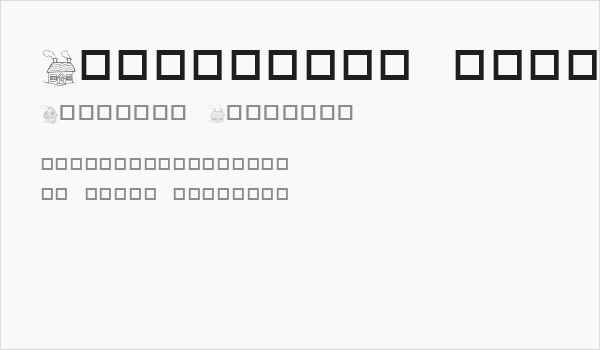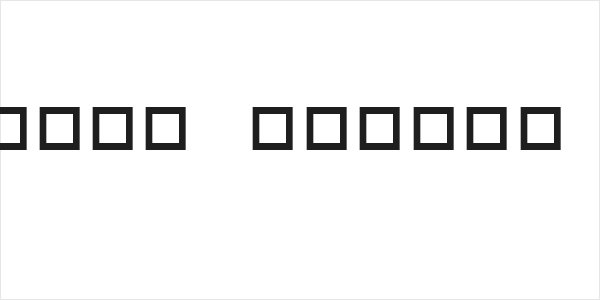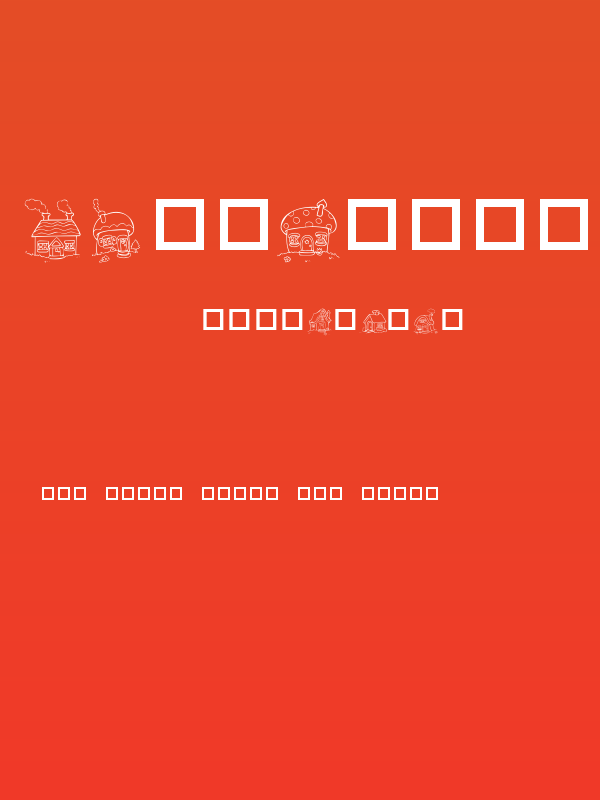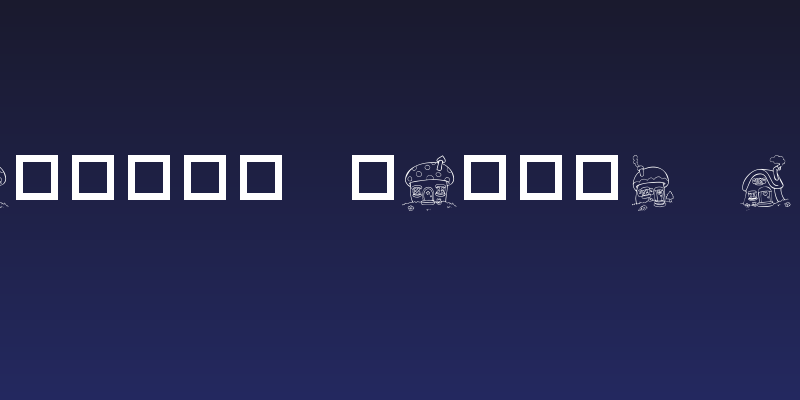
Destiny's Little Houses Font
Destiny's Little Houses Description
This is not a valid font. The image contains illustrations of small, whimsical houses, each with unique architectural features. These charming designs evoke a sense of fantasy and creativity, making them suitable for decorative purposes. The houses are detailed with elements like chimneys, windows, and doors, each contributing to a storybook-like appearance. The overall style is playful and imaginative, perfect for projects that require a touch of whimsy and charm.
| Overall Style | Whimsical, Playful |
| Use Case | Decorative illustrations, Art projects |
| Proposed Projects | Ideal for children's book illustrations, fantasy-themed designs, or decorative art projects. |